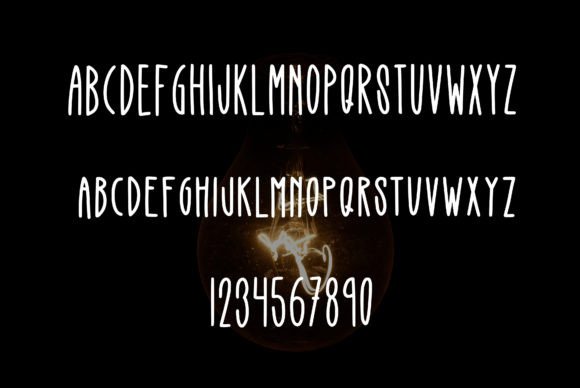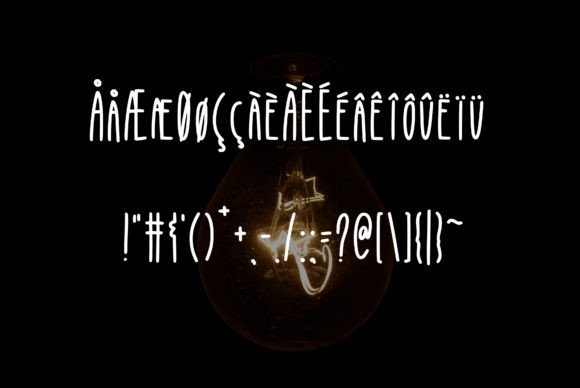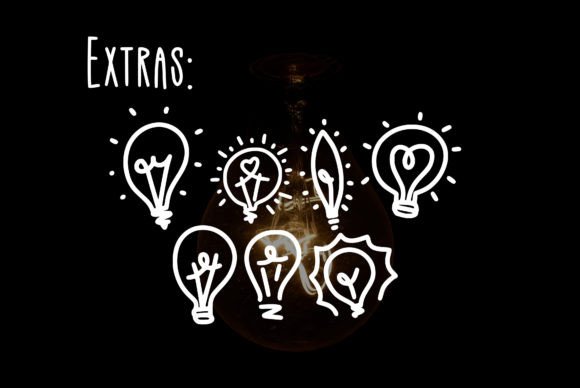
Spark Your Next Bright Idea
Who hasn’t had that moment of creative clarity, when a brilliant idea suddenly pops into their mind and refuses to leave? It’s like a spark of electricity that sets your imagination ablaze, and you can’t wait to bring it to life. For designers, those eureka moments are the stuff of dreams, and the right tools can make all the difference. That’s where the Bright Idea Font comes in – a clever all-caps font that shines with personality and energy.
Perfect for sparking creativity, this font comes with playful doodles that evoke a sense of fun and imagination. Whether you’re designing for DIY projects, crafting up quirky headlines, or adding a touch of hand-drawn charm to your next venture, the Bright Idea Font is a valuable asset for any designer looking to add a touch of whimsy to their work.
Bright Idea Font Key Features
- Font Family: Bright Idea Font is a unique, hand-drawn sans-serif font family designed to evoke a sense of creativity and innovation.
- Unique Characteristics: Bright Idea Font features distinctive, hand-crafted letterforms with subtle irregularities, giving it a human touch and making it perfect for branding, advertising, and editorial design.
Bright Idea Font Review
As a designer, I was excited to dive into the Bright Idea Font, but my experience was a mixed bag. Here’s what I think works well and what’s holding it back.
- Unique aesthetic: The Bright Idea Font has a quirky, hand-drawn feel that’s sure to stand out in any design.
- Good legibility: Despite its playful appearance, the font is surprisingly easy to read, even at smaller sizes.
- Customization options: The font comes with a range of stylistic sets and ligatures that allow for some nice creative control.
- Limited language support: The Bright Idea Font only includes a basic Latin character set, which may limit its use in multilingual designs.
- Not ideal for body text: While it works well for headlines and titles, the font’s irregularities make it less suitable for large blocks of body text.
The Bright Idea Font is a great choice for designers looking to add some personality to their projects, but it may not be the best fit for every job. With some careful planning and selection, it can add a fun and creative touch to your designs.
To get the most out of “Bright Idea Font”, use it for:
- Designing playful and creative graphics.
- Creating attention-grabbing headlines and titles.
- Adding a touch of whimsy to your branding and marketing materials.
Bright Idea Font is a sans-serif font known for its clean and modern design. However, designers may look for alternatives that offer unique characteristics or better suitability for specific projects.